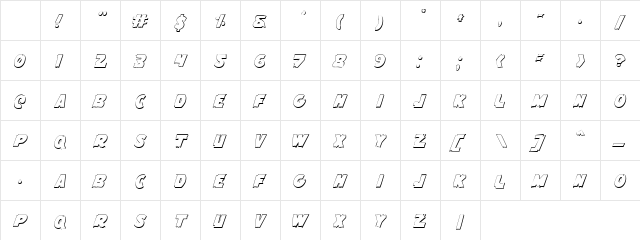
Complete Flying Leatherneck Outline glyph index. Displaying only characters natively supported by Flying Leatherneck Outline font.
Flying Leatherneck is built around its visual character rather than neutral utility - its distinctive forms are designed to make an impression at display sizes.
Font Pairing: Pair with a clean neutral sans-serif for body copy to let Flying Leatherneck's character lead without overwhelming the composition.
Pro Tip: Use Flying Leatherneck exclusively at display sizes - it was designed to be seen, not read at length. Let a neutral companion handle body copy.